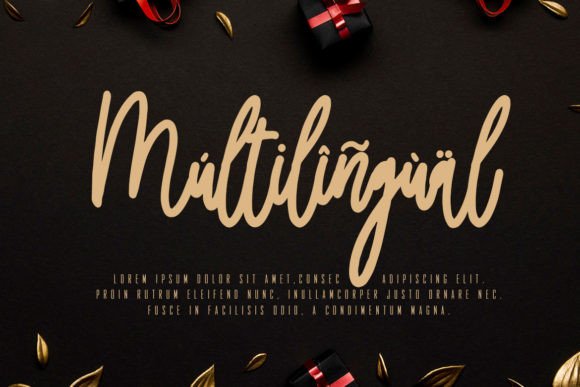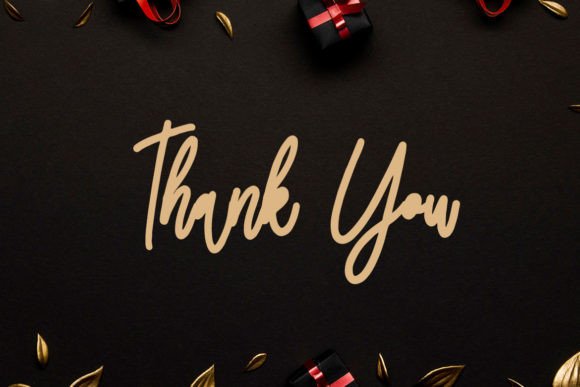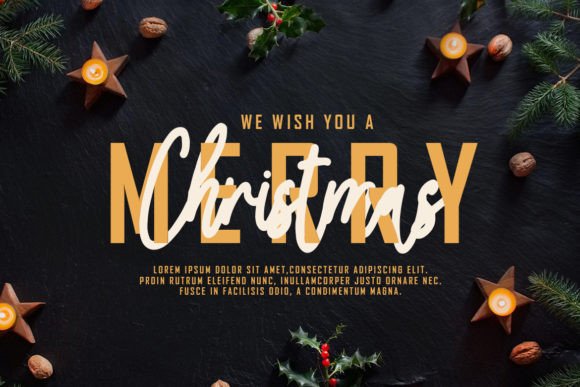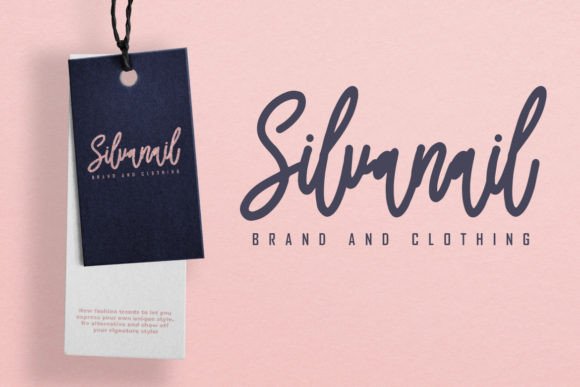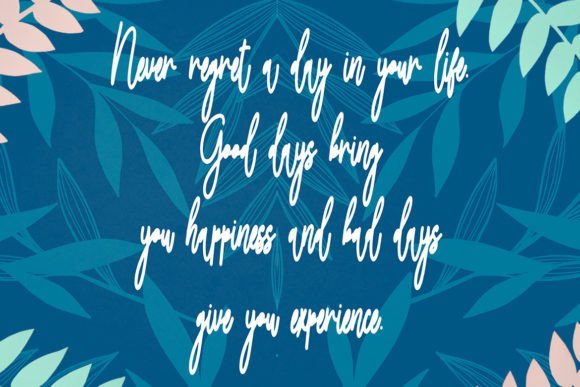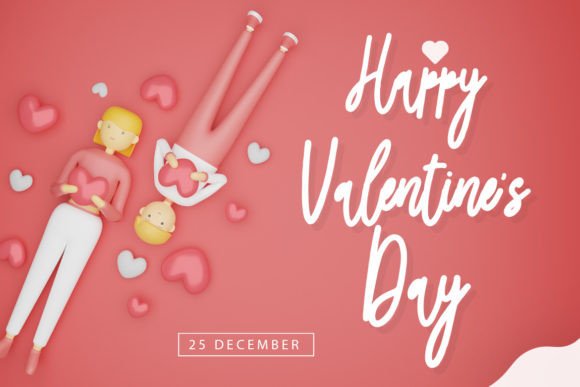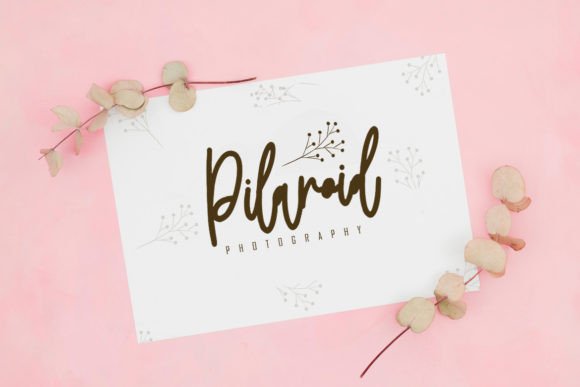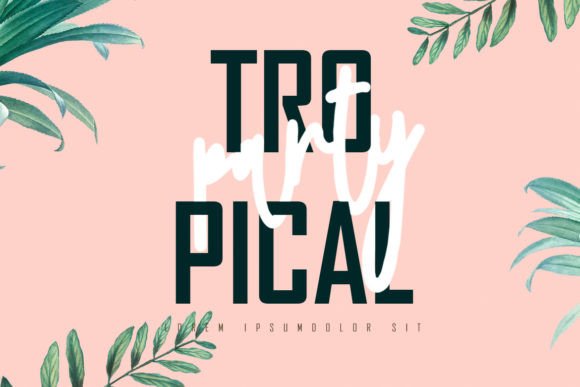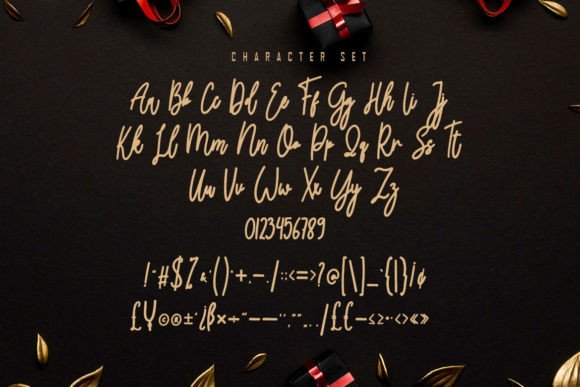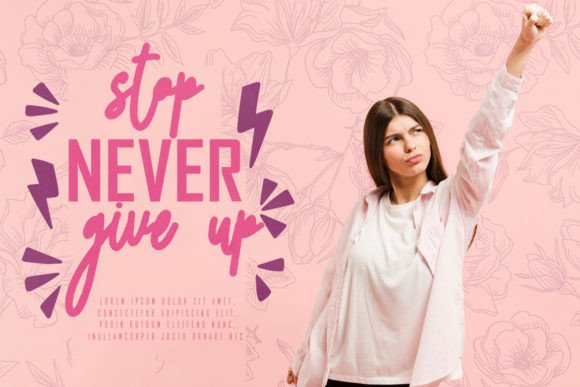
Postiror Font
About Postiror Font
Postiror font is an elegant and charming handwritten typeface designed to add a graceful touch to all your creative projects. When you download Postiror font, you get a versatile script that enhances wedding invitations, thank you cards, logos, and more with a refined, handwritten style.
Elegant Handwritten Style
Postiror font beautifully blends charm with elegance, making it an excellent choice for designs that require a personal, sophisticated feel. Its smooth, flowing lines make every letter look handwritten, giving your projects a unique and authentic touch.
Perfect for Special Occasions
This font shines in wedding invitations, greeting cards, and thank you notes, where elegance and warmth are essential. Download Postirorfont to create memorable designs that resonate with romance and heartfelt emotion.
Versatile for Branding and Business
Postirorfont is also ideal for business cards and logos, where a handwritten style can add personality and professionalism. Its delicate yet clear design makes it suitable for brands seeking to convey authenticity and elegance.
Easy to Use Across Projects